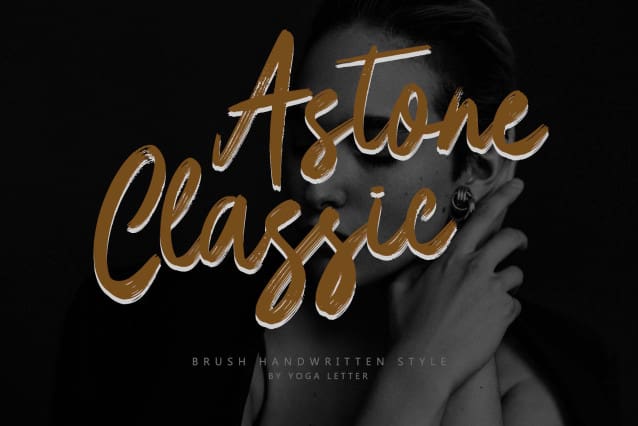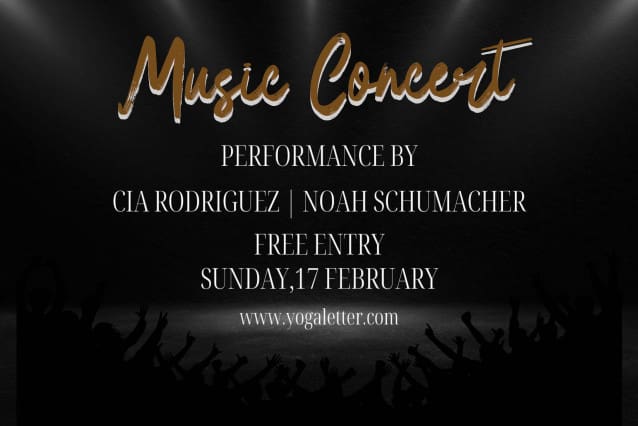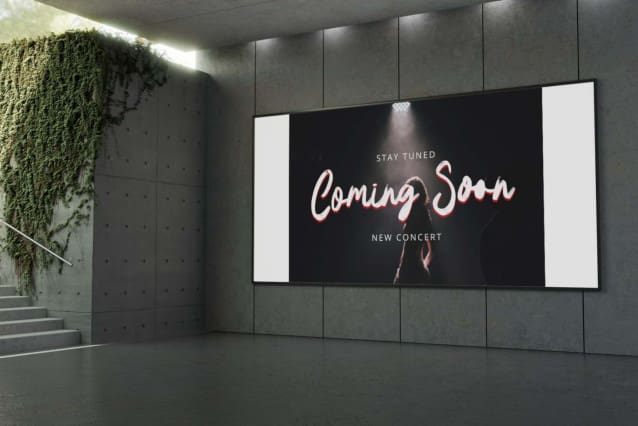
Astone Classic Font
Astone Classic Font is an elegant and unique handwritten brush font. It comes with capital letters, lowercase letters, numbers, ligatures, punctuation, and multilingual support. It is perfect for business branding, social media, promotions, invitations, tumblers, banners, posters, prints, branding, stickers, Christmas, winter, valentine, and more.